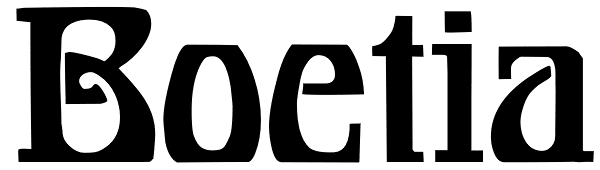
Boetia
Boetia is an Art Nouveau period font which is designed to give some of the feel of ancient Greek lettering and design. It also echoes the lettering of the Psychedelic poster era and would be a great addition to any 60s font collection. The overall...